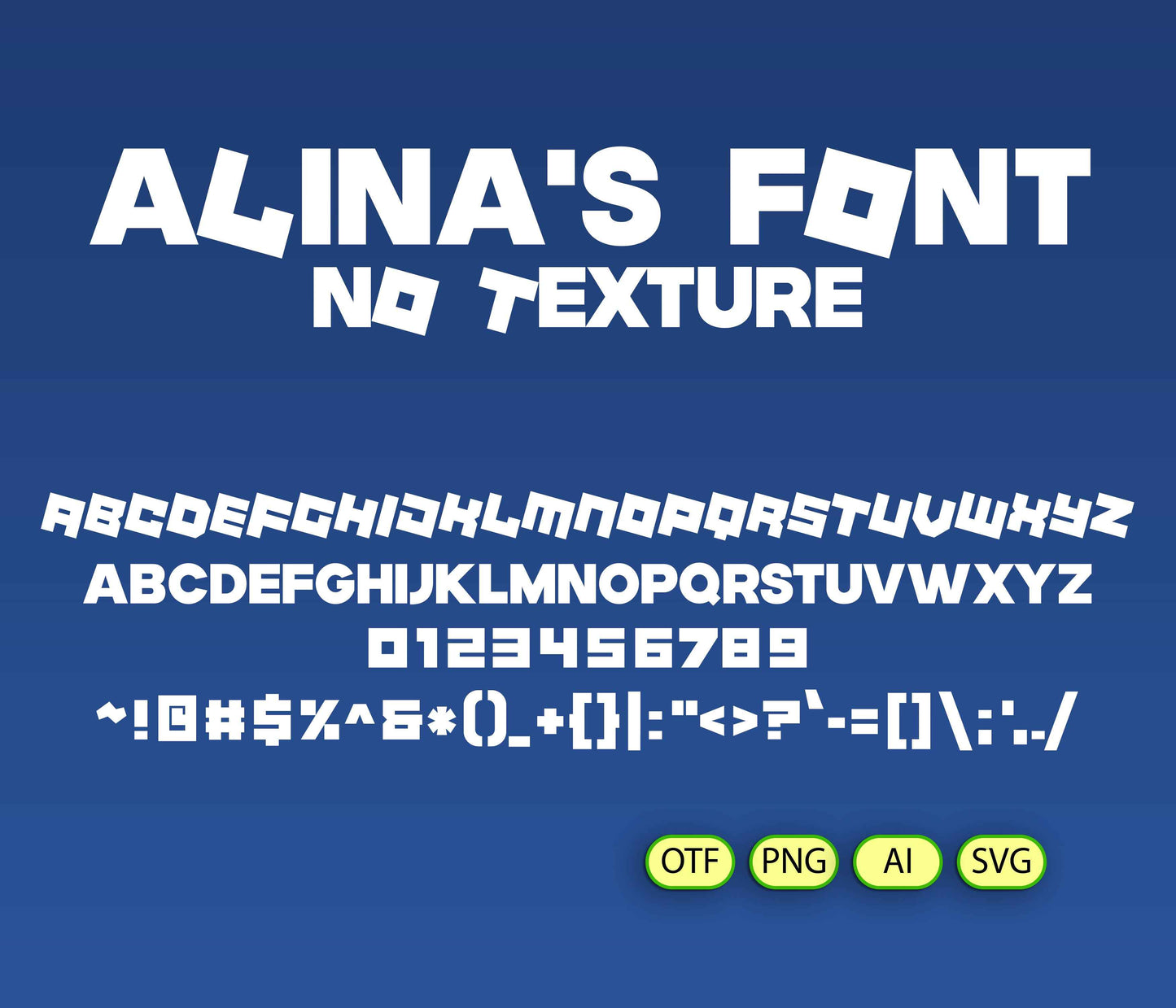
BloxPlay Font
Power Up Your Designs with the BloxPlay Font
Step into the world of gaming with our BloxPlay font, designed to capture the creativity and excitement of the global platform where millions of players gather to create and share unique online experiences. Perfect for fans, game developers, and content creators, this font embodies the blocky, playful aesthetics synonymous with BloxPlay, ensuring your projects resonate with the fun and interactive spirit of the game.
Our BloxPlay-inspired font features bold, angular shapes that reflect the user-generated and architectural elements of the BloxPlay universe. It's crafted to stand out in digital landscapes, making it ideal for a variety of applications:
BloxPlay Font Generator
Many people seek out a BloxPlay font generator online to mimic the look of the BloxPlay font. Steer clear! No font generator can match the quality of this BloxPlay font. This is particularly beneficial if you plan to use it with a cutting machine.
Our BloxPlay font not only celebrates the innovative spirit of the platform but also helps you bring a piece of its engaging, creative world into your designs. With its bold style and flexible application, this font enables you to communicate effectively with the vibrant BloxPlay community, whether you're developing games, creating content, or promoting interactive experiences. Ready to build your next project with BloxPlay-inspired flair? This font is your key to unlocking new realms of creativity.